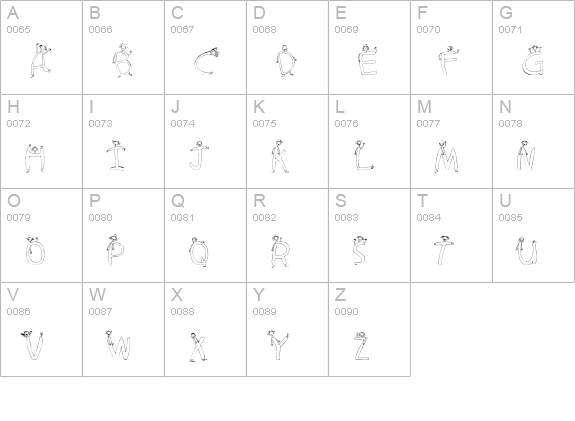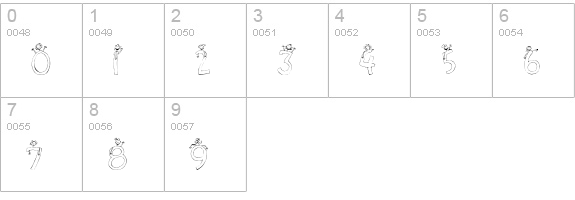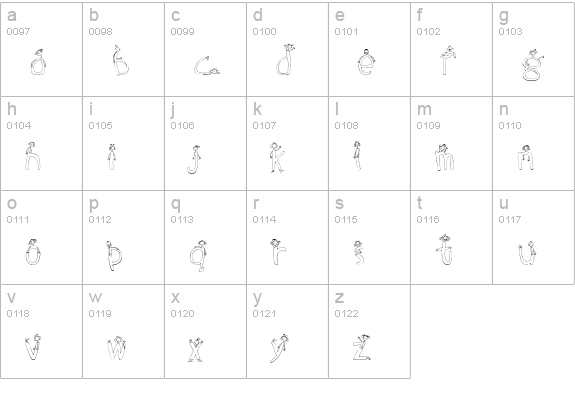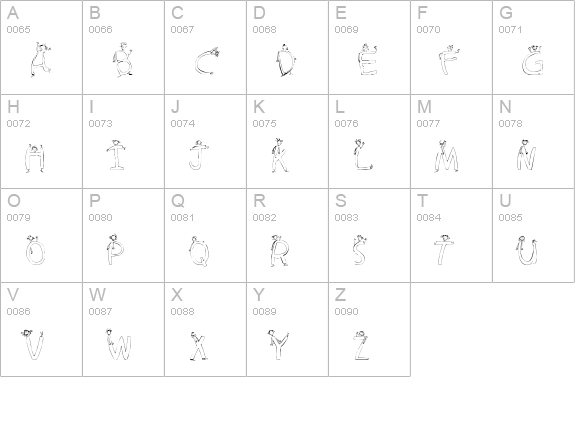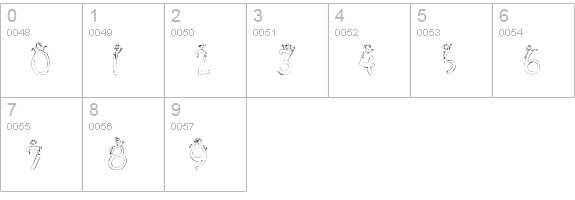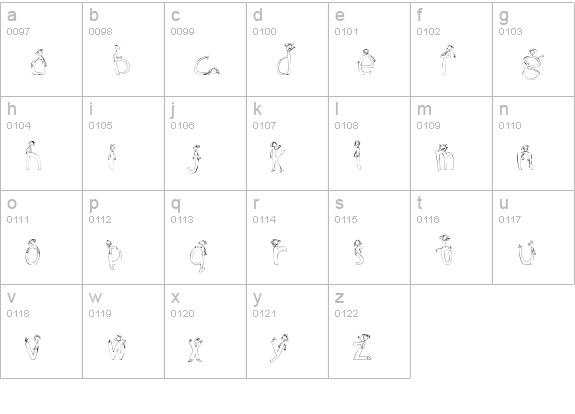
Introducing CK Stick Girls font, a charming and whimsical typeface that is perfect for adding a playful touch to your designs. This font features hand-drawn stick figure characters that give off a fun and lighthearted vibe. With its thin lines and quirky shapes, CK Stick Girls font is sure to bring a unique and creative flair to any project. What's even better is that this font is completely free to use! You can download CK Stick Girls font at FontsMarket.com and start incorporating its delightful characters into your designs right away. Whether you're creating invitations, posters, or social media graphics, this font will add a touch of personality and charm to your work. Don't miss out on this wonderful opportunity to elevate your designs with CK Stick Girls font - download it for free today!